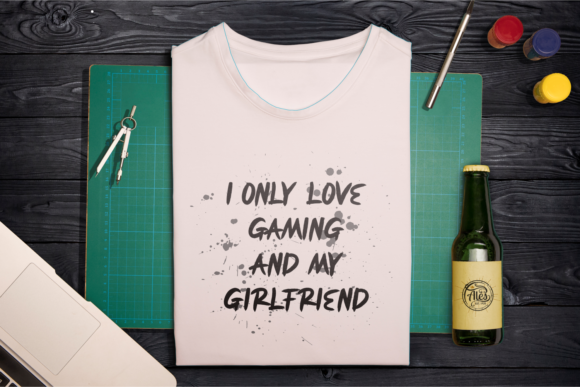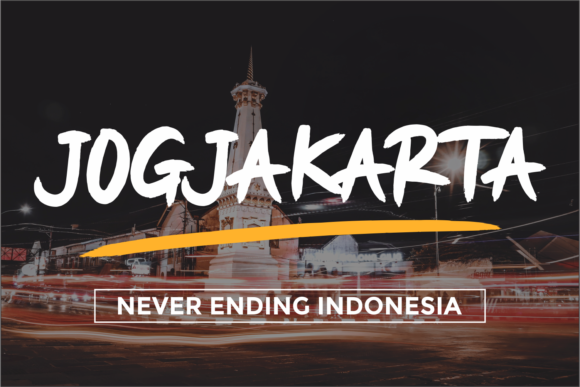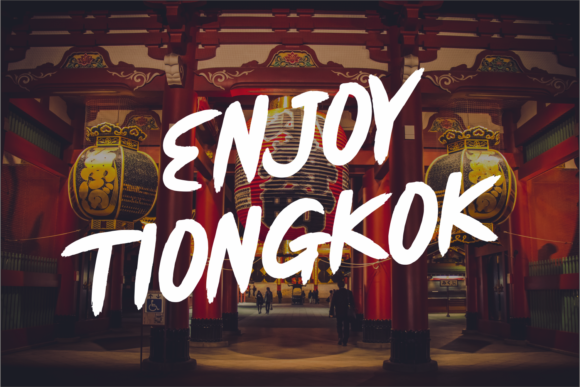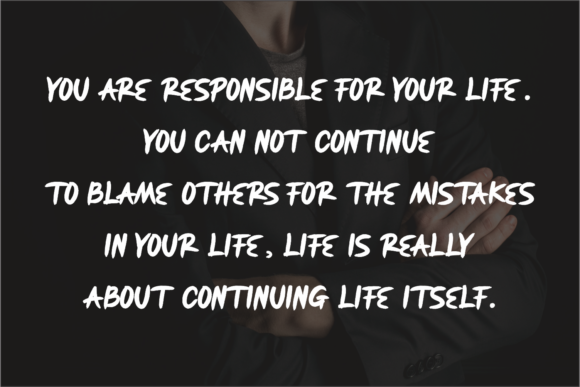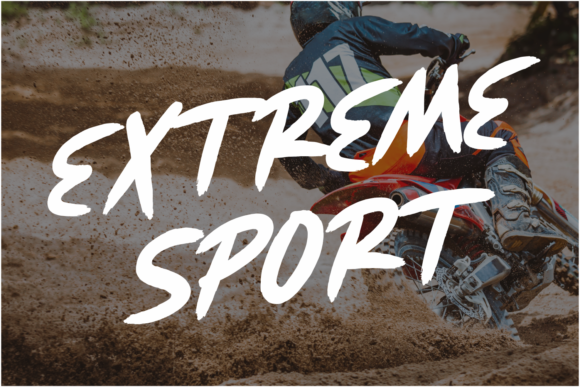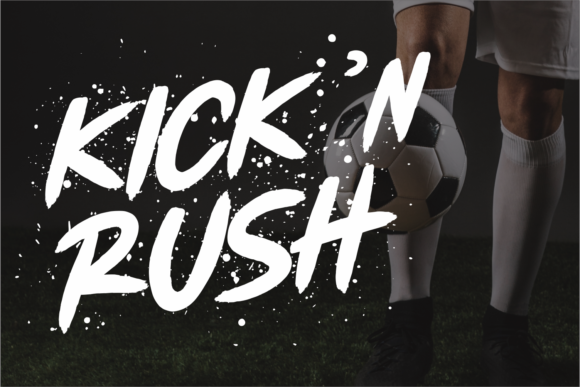
Introduction to First Blood Font
First Blood is a casual, fun handwritten font, created by using a brush pen.
Clean and a little bit quirky, this font is the perfect fit for all of your logos, branding, social media, and crafty DIY projects .